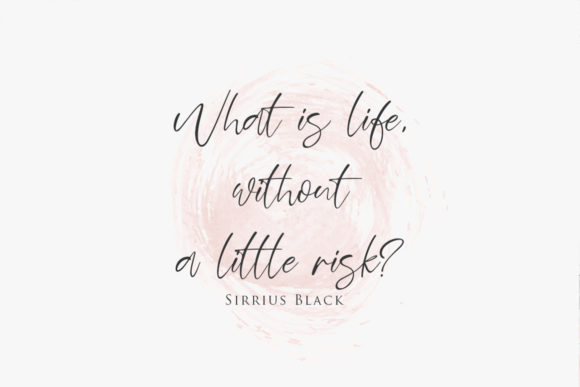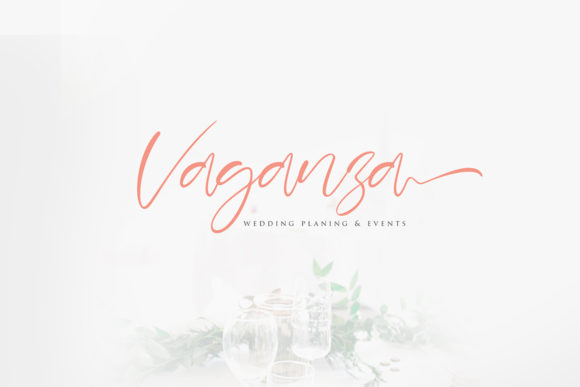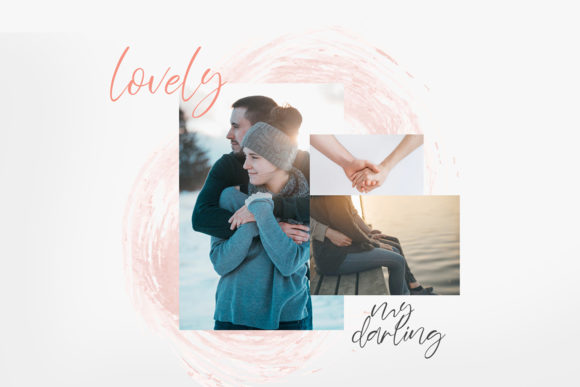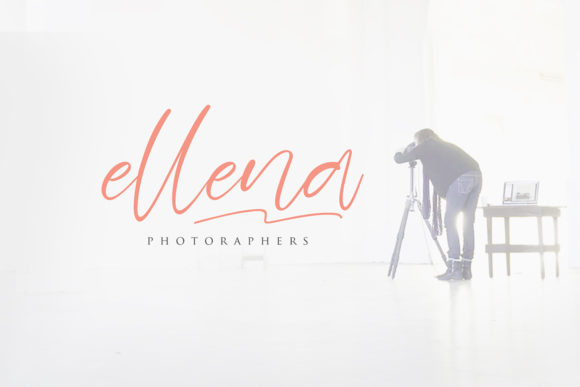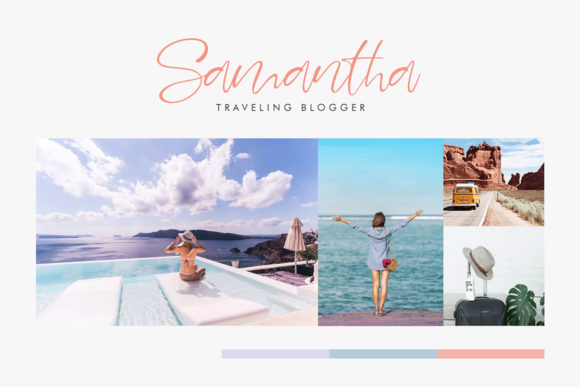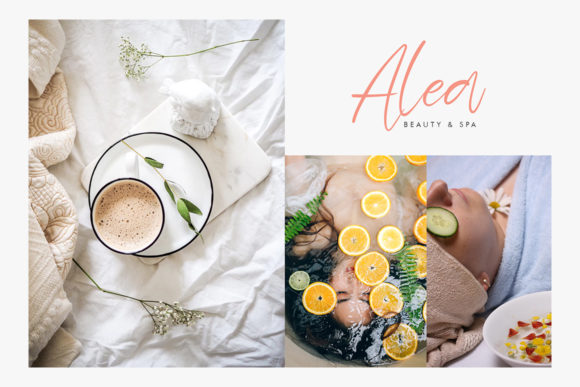
Introduction to Sheenaz Font
Sheenaz is a beautiful and light handwritten font with a casual feel.
Get inspired by its contemporary charm .
Key Features of Sheenaz Font